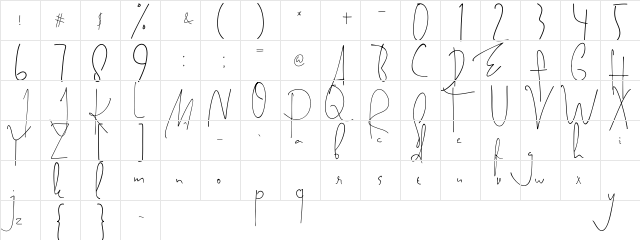
SatriyaMayaHandwriting Regular
Design Context for SatriyaMayaHandwriting Typeface
SatriyaMayaHandwriting flows with the natural rhythm of handwritten lettering, making it ideal for designs that call for warmth and personal expression.
Font Pairing: Combine SatriyaMayaHandwriting with a simple geometric sans for maximum contrast — the tension between flowing curves and clean structure is a classic typographic pairing.
Pro Tip: Pair SatriyaMayaHandwriting with a clean sans-serif for supporting text. The contrast between fluid script and geometric structure creates an elegant typographic hierarchy.